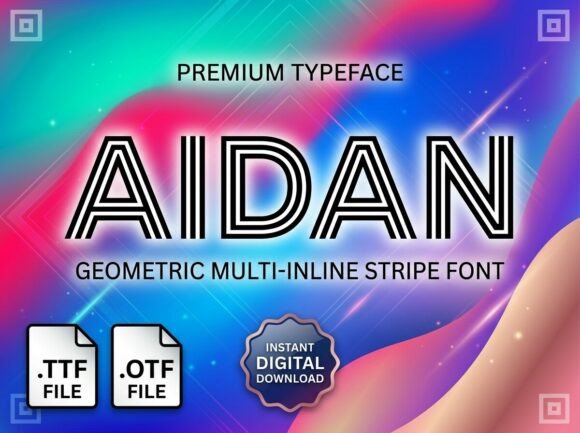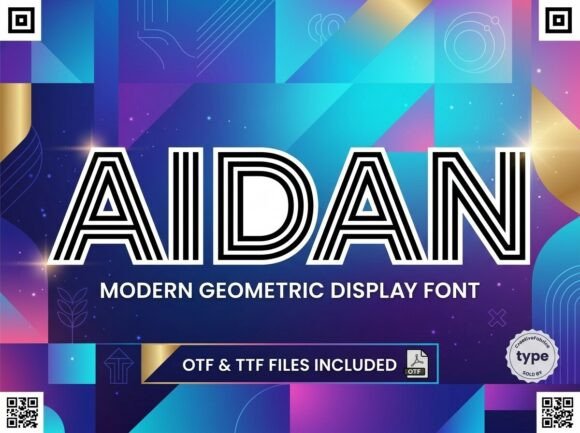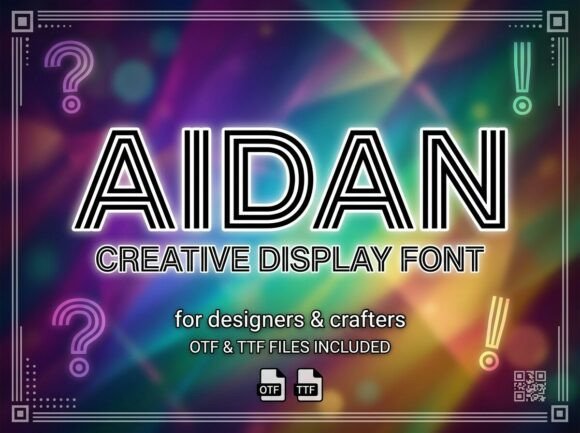
The Aidan Font: A Stunning Decorative Display Font to Elevate Your Designs
Have you ever been working on a project, pouring your heart and soul into it, and then suddenly realized that something is missing? For me, that something was a font that could add a touch of elegance and sophistication to my designs. I was working on a logo design project for a luxury brand, and I wanted a font that could convey a sense of high-end quality and refinement. That’s when I stumbled upon the Aidan Font, a stunning decorative display font that has become a game-changer for my designs.
As a designer, I’m always on the lookout for fonts that can help me stand out from the crowd. The Aidan Font is definitely one of them. Here’s what I love about it:
- ✨ Unique artistic elements: The Aidan Font features intricate details and artistic flourishes that make it truly unique.
- ✅ Strong visual personality: This font has a bold and confident presence that demands attention.
- 💼 Versatility: The Aidan Font is perfect for bold headlines, artistic logos, and creative packaging.
- 👍 Professional and polished finish: Despite its decorative nature, the font maintains a level of sophistication and refinement.
However, there are a few quirks to be aware of:
- ⚠️ The Aidan Font is an ALL-CAPS (Uppercase Only) display typeface, which means it doesn’t include lowercase letters.
- 🤔 This might limit its use for body text or longer paragraphs, but it’s perfect for headlines and titles.
The Designer Inspiration Behind Aidan Font
The Aidan Font was designed with the intention of creating a unique and eye-catching display font. The designer wanted to create a font that would stand out from the crowd and add a touch of elegance to any design. The result is a font that’s both artistic and sophisticated, with intricate details and a strong visual personality.
| Q: Is the Aidan Font suitable for body text? | A: No, the Aidan Font is an ALL-CAPS display typeface that’s best suited for headlines and titles. |